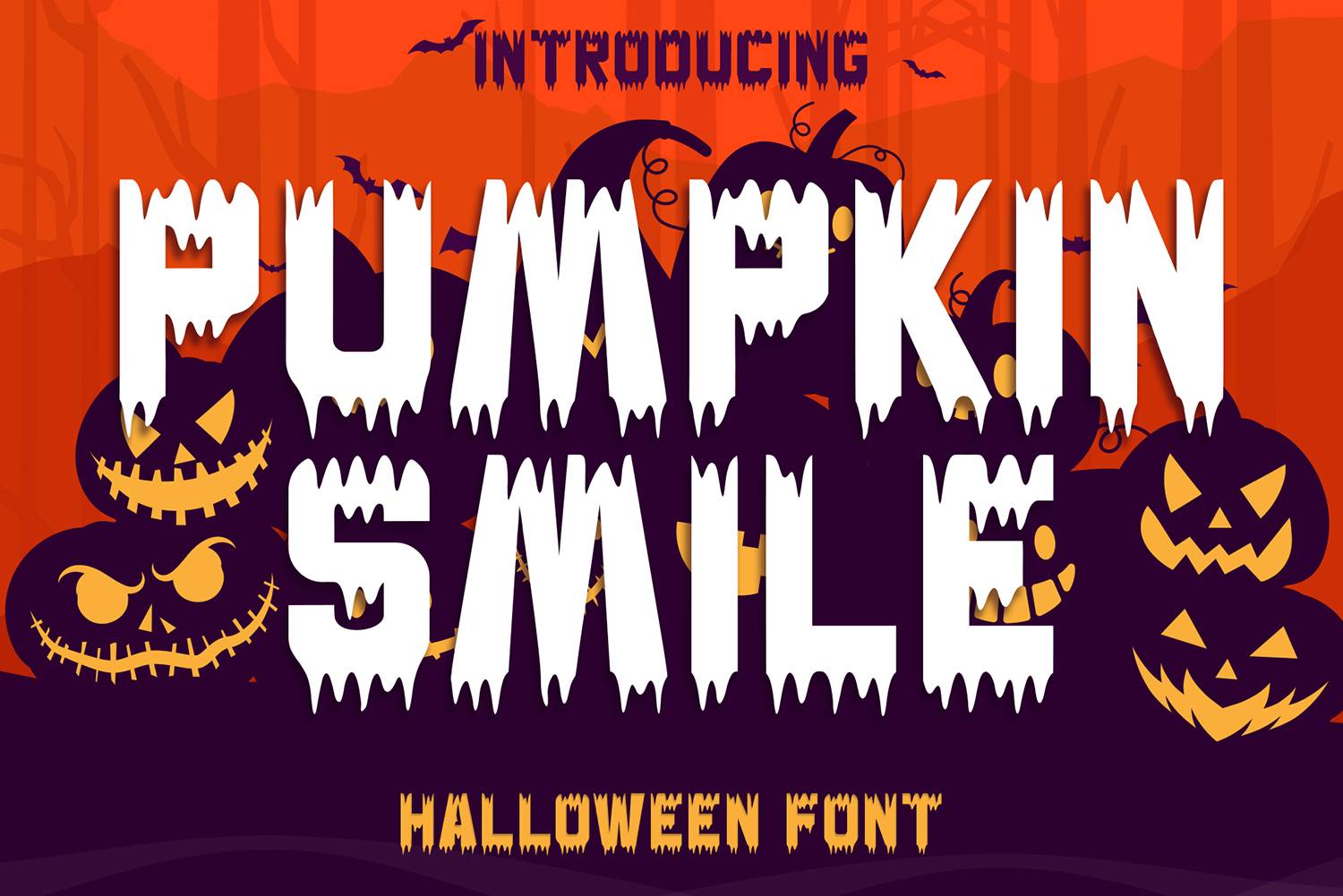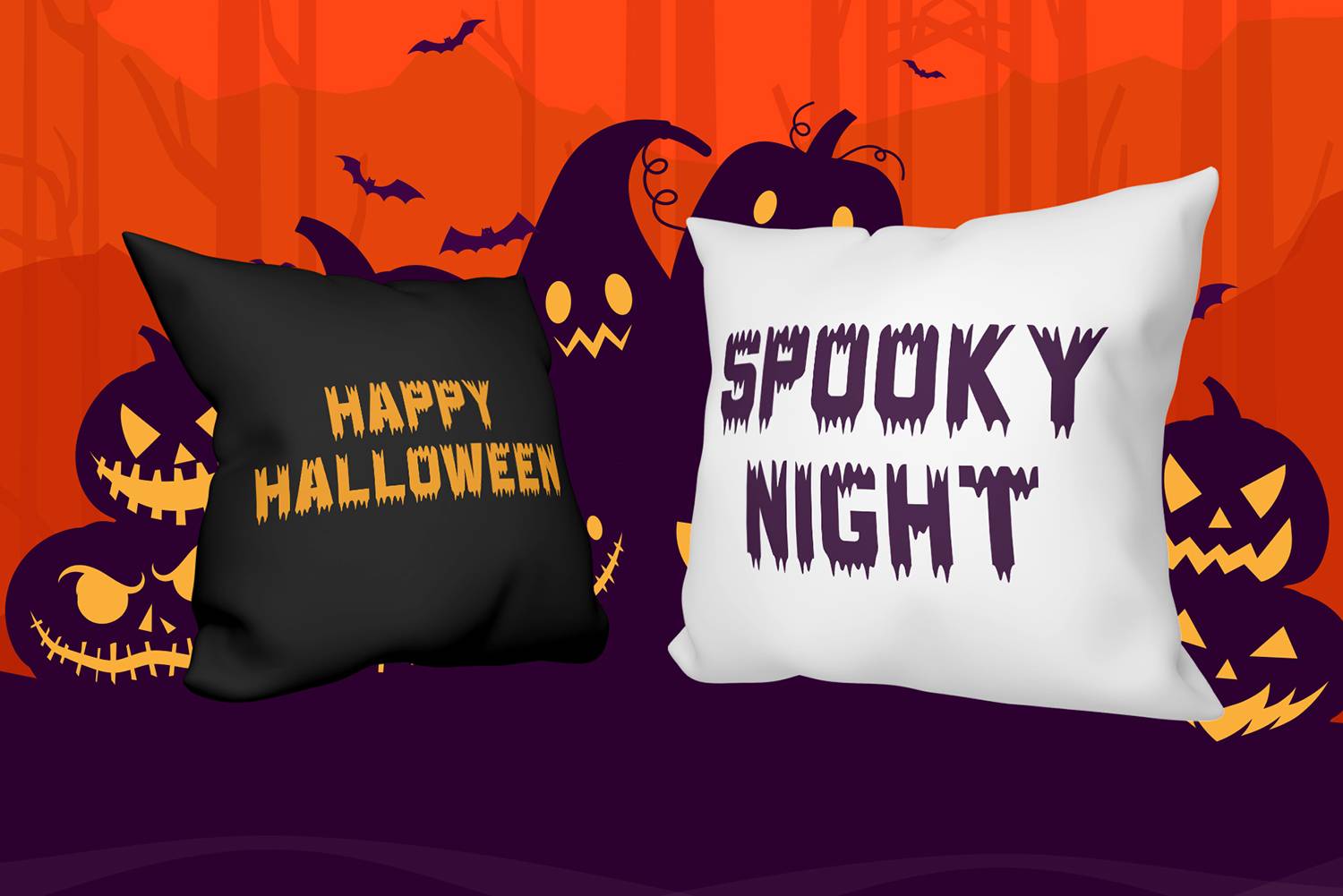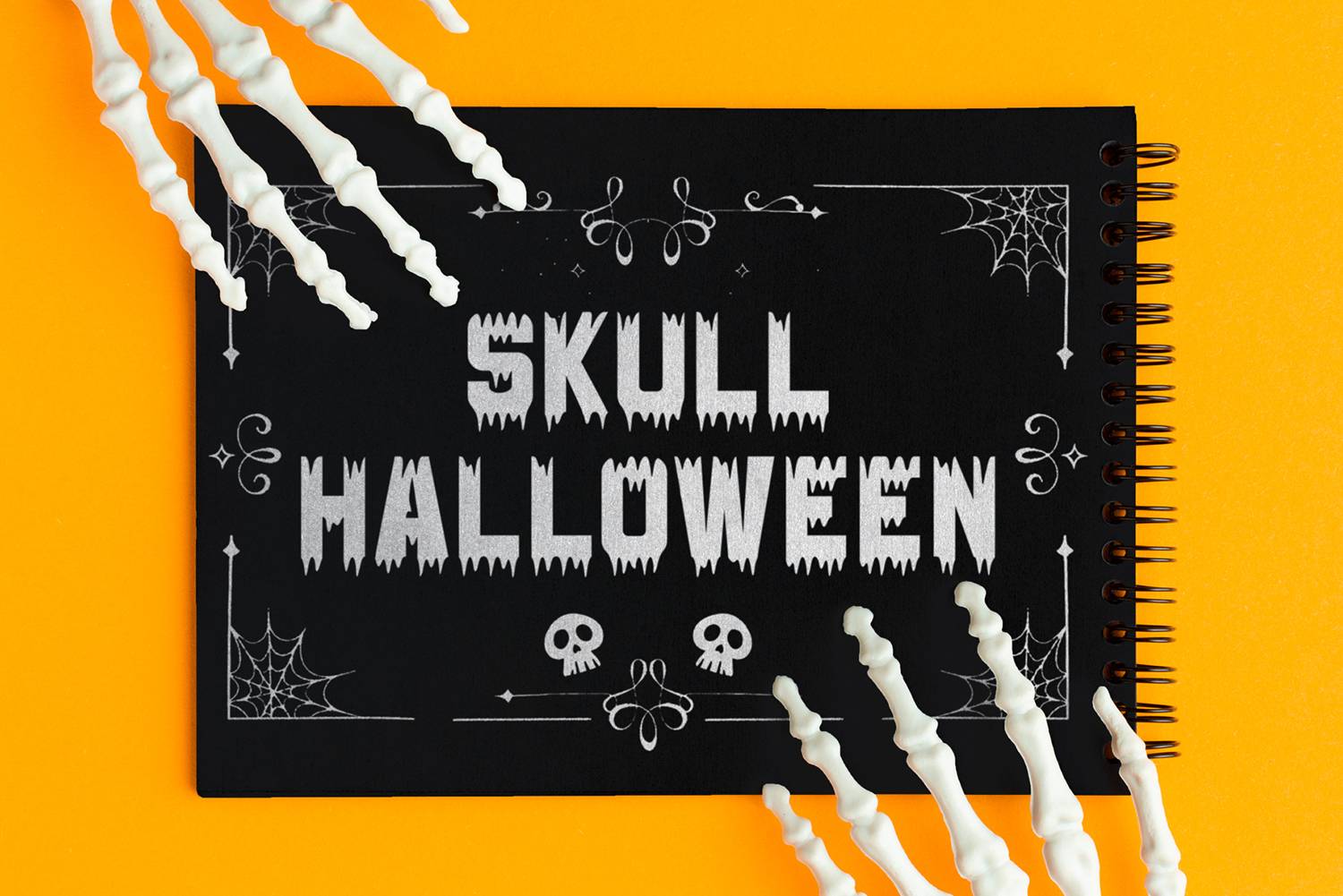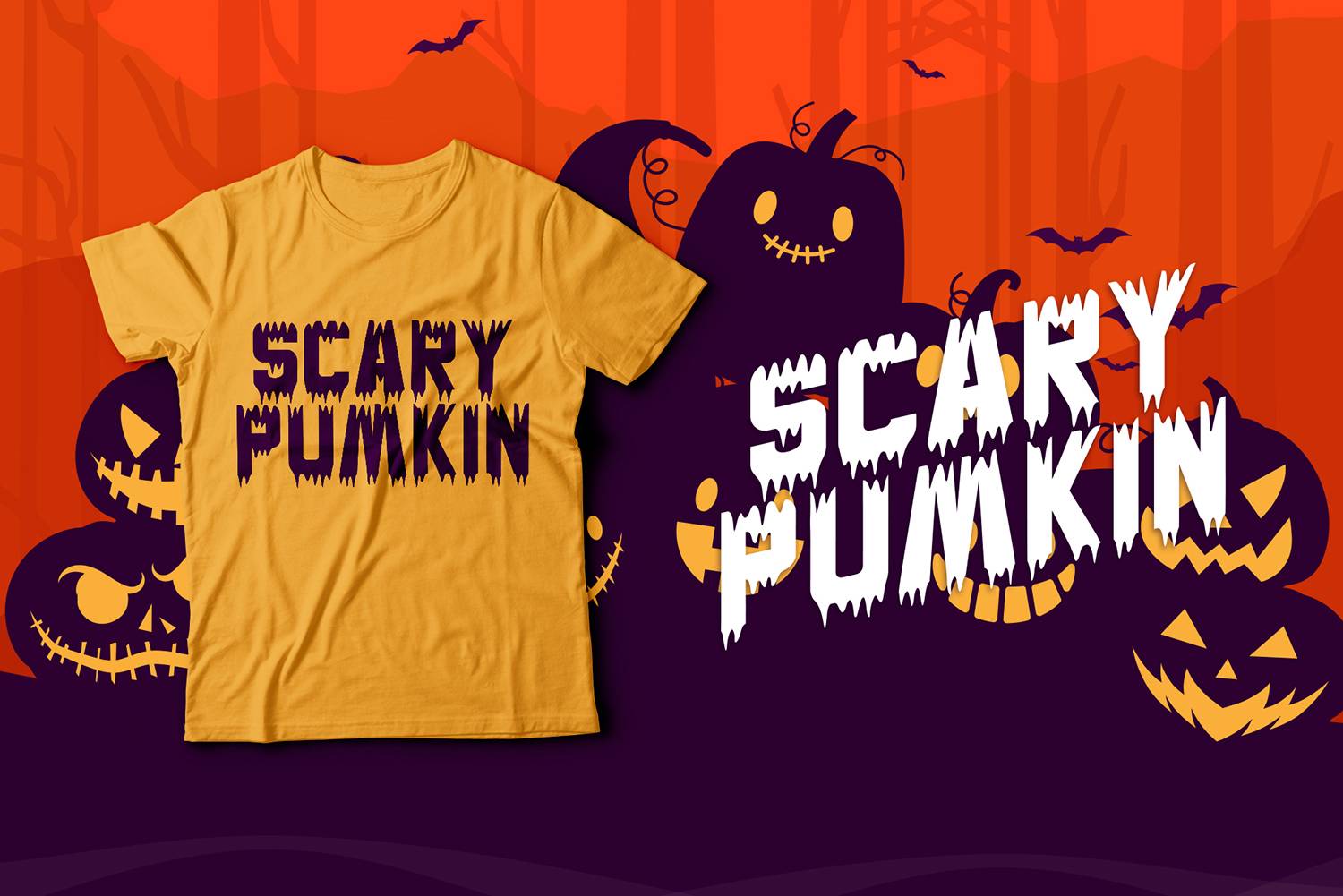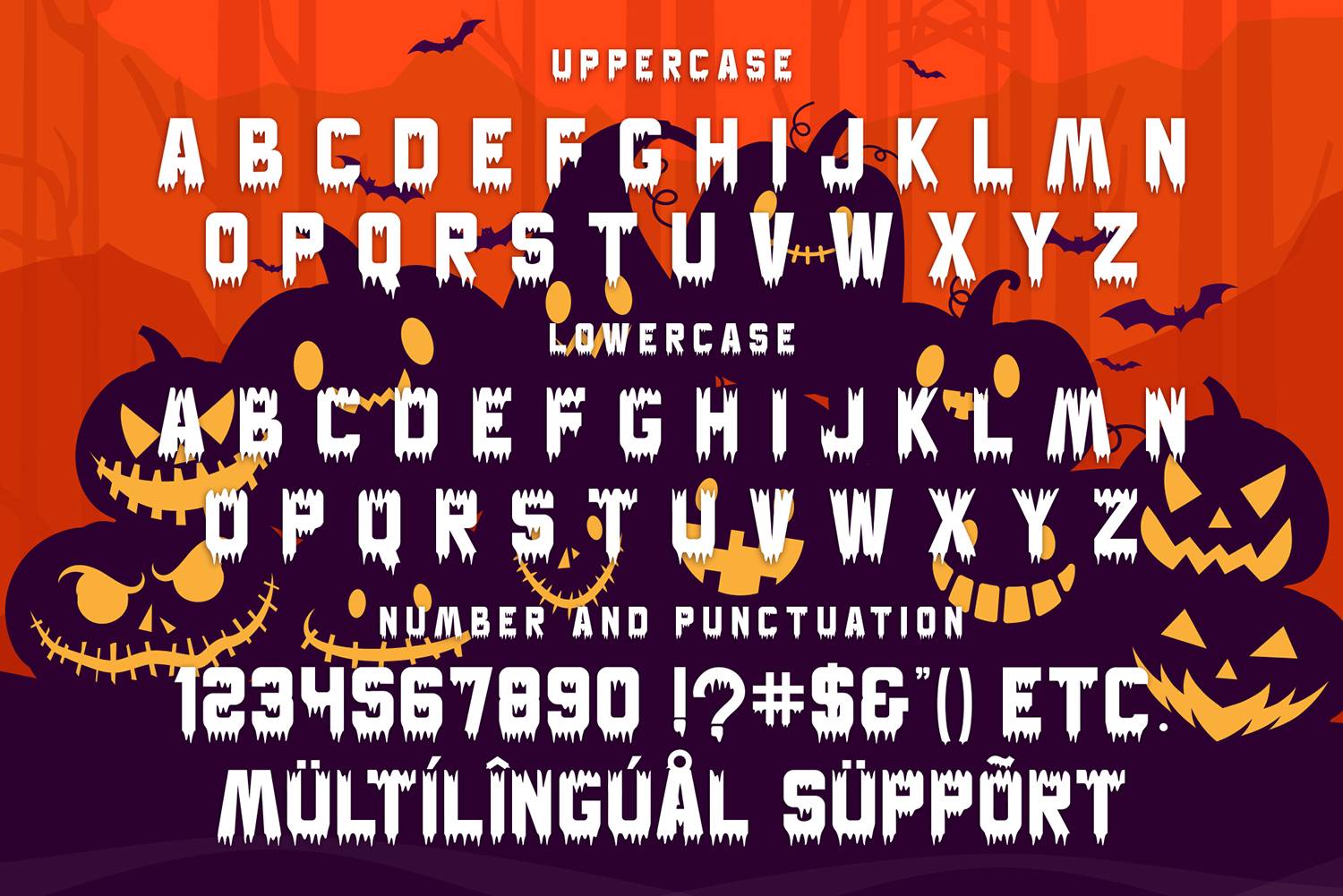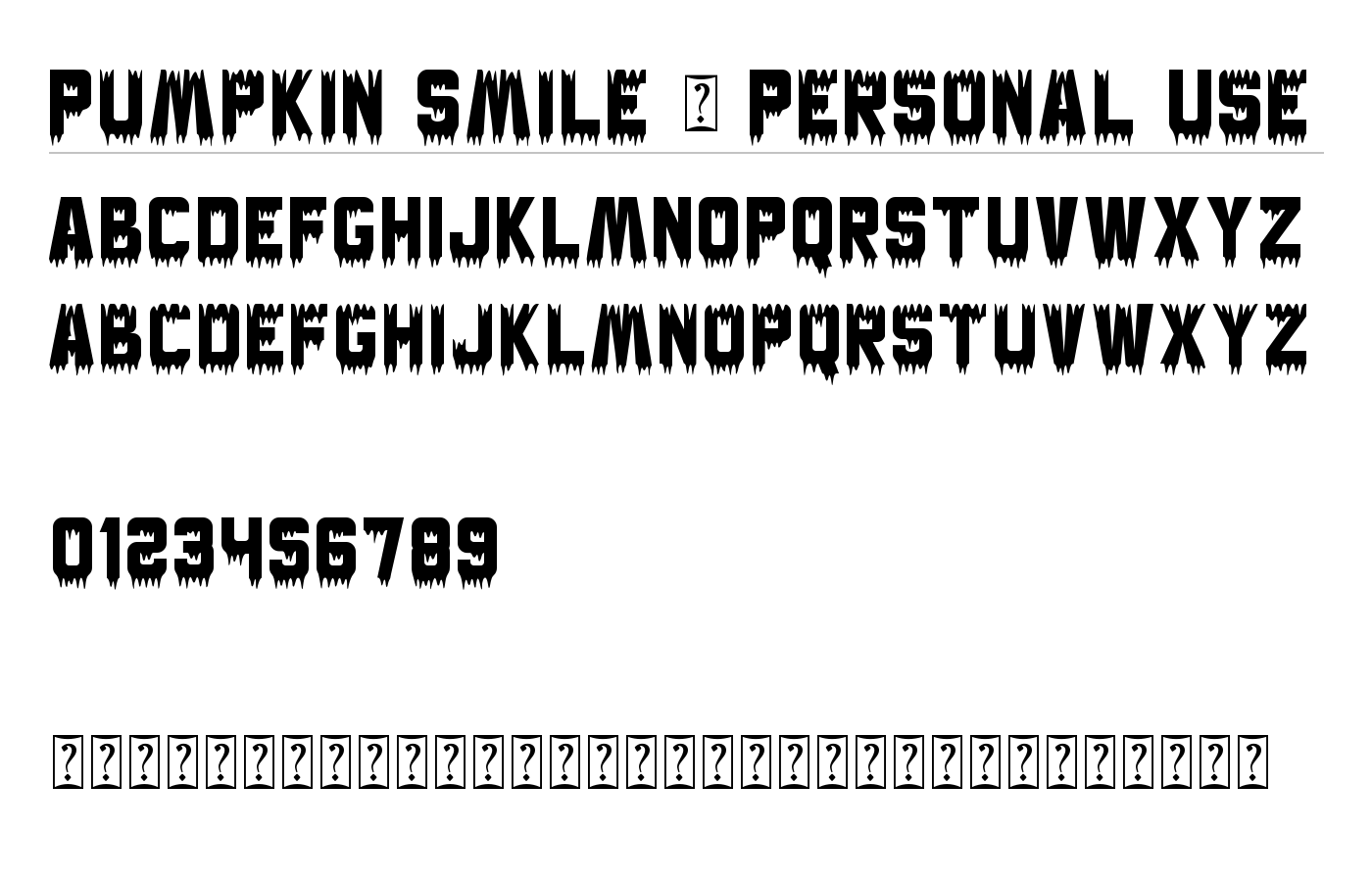
Pumpkin Smile is a bold, all-caps display font with a playful horror vibe, featuring jagged, dripping edges that evoke spooky and Halloween-themed designs. Its heavy weight and condensed letterforms make it perfect for attention-grabbing headlines, posters, and seasonal branding where a fun yet eerie atmosphere is desired. This font works best in decorative contexts that call for a strong, unique personality rather than extended reading.
Pumpkin Smile Font
About Pumpkin Smile Font
| Font family | Pumpkin Smile Font |